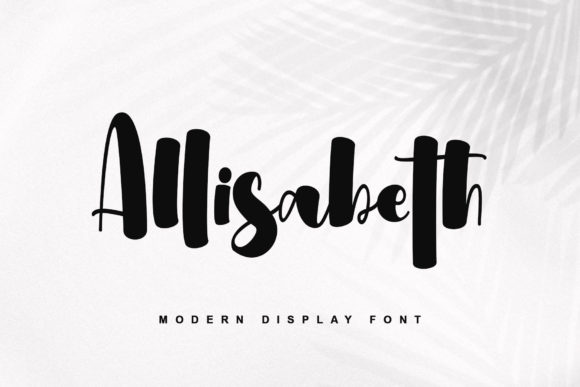
Allisabeth Font
Dive into the captivating world of Allisabeth Font, a script font that dances off the page with a delightful blend of simplicity and uniqueness. This font's casual charm exudes a warm and inviting ambiance, making it effortlessly readable and versatile.
Step into a realm where words come alive with a touch of whimsy and authenticity. Let Allisabeth Font infuse your projects with a delightful down-to-earth flair, adding a sprinkle of playfulness and a dash of intrigue. Unleash your creativity and embark on a journey of self-expression, transforming your designs into captivating works of art.
With Allisabeth Font as your creative companion, let your imagination soar as you explore a myriad of possibilities. Craft stunning logos that exude a timeless elegance, design captivating invitations that ignite curiosity, or create social media posts that radiate personality.
Embrace the magic of Allisabeth Font and transcend the boundaries of ordinary typography. Elevate your designs to new heights, leaving a lasting impression on your audience. Let your creativity shine through, transforming your projects into masterpieces that speak volumes.
Unleash the power of Allisabeth Font today and embark on a creative adventure that knows no limits. Let your imagination ignite as you witness the transformative power of typography at its finest.